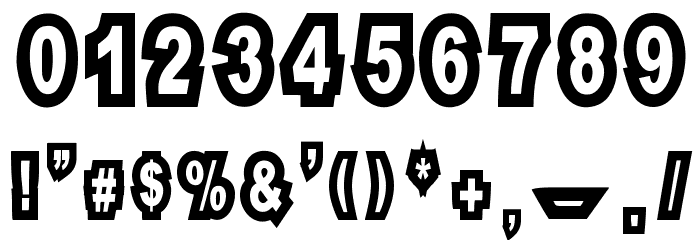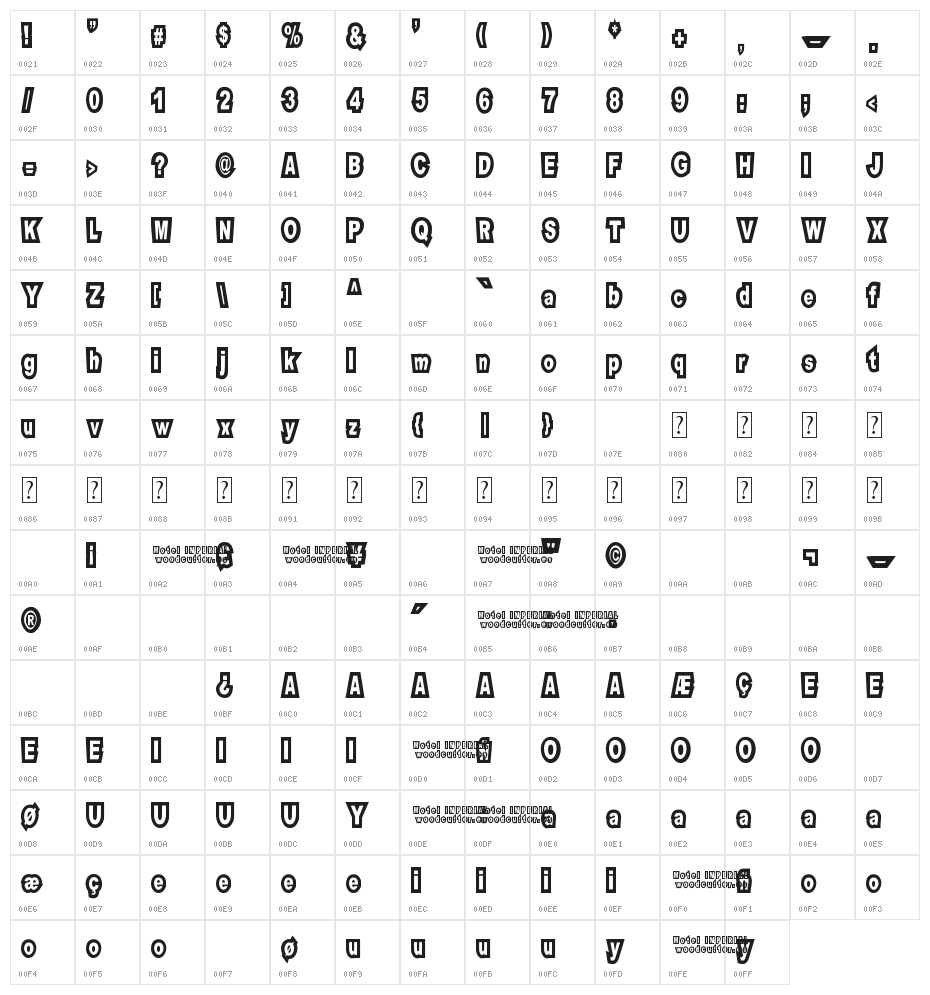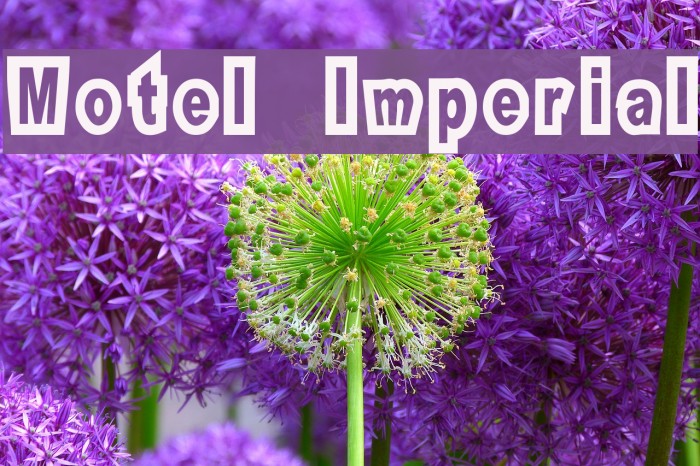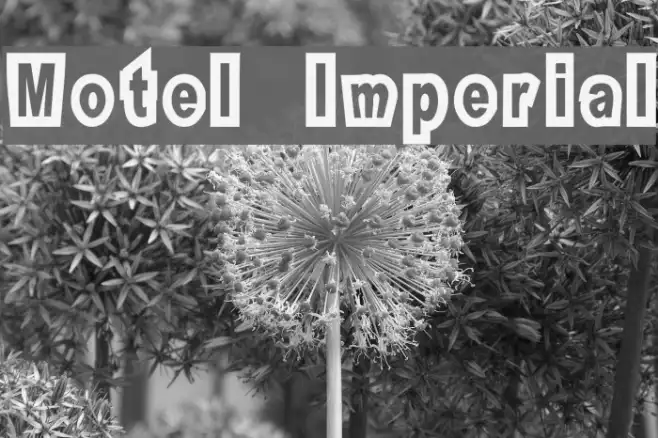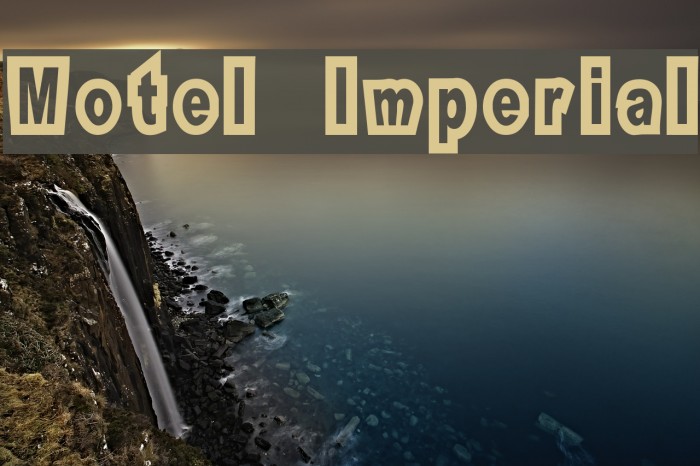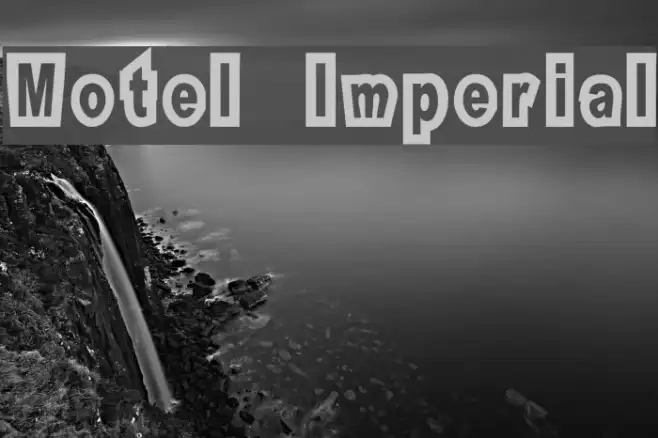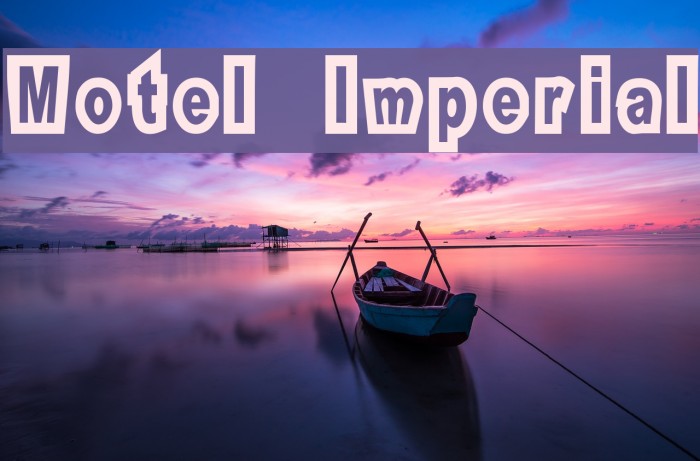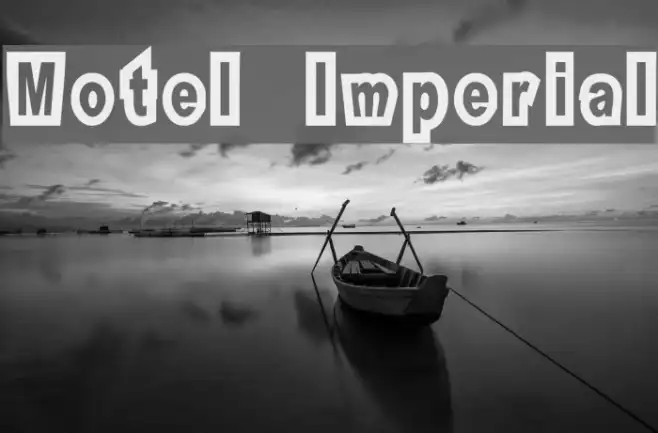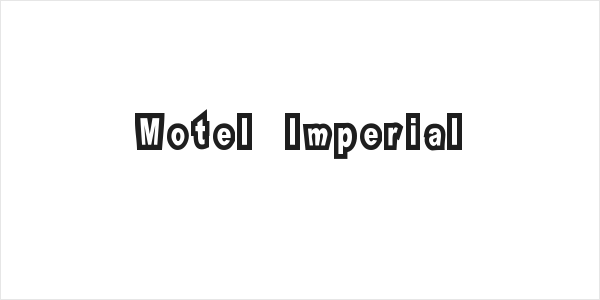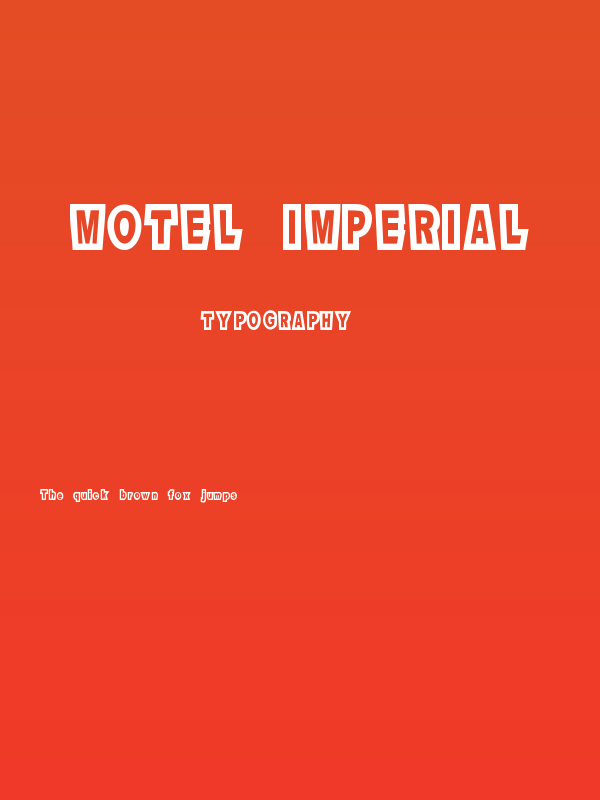
Motel Imperial Font
Motel Imperial Description
This font features bold, blocky letters with a strong, impactful presence. The characters have a distinct shadow effect, giving them a three-dimensional appearance. The uppercase and lowercase letters maintain a consistent style, with rounded edges and a slightly condensed form. The numerals and special characters follow the same bold and shadowed design, ensuring uniformity across all glyphs. This font is ideal for creating eye-catching headlines or titles that demand attention.
| Proposed Projects | Ideal for retro-themed posters, eye-catching headlines, and branding materials that require a strong visual impact. |